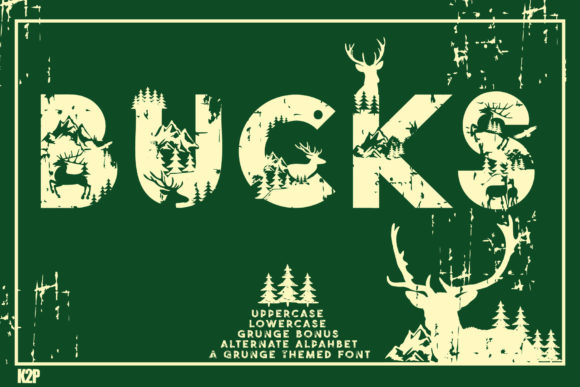
The Ultimate Guide to Bucks Font: A Fun and Assertive Decorative Font
I’ll never forget the time I was working on a camping-themed design project, and I just couldn’t find the right font to capture the adventurous spirit of the great outdoors. My client wanted something that was fun, original, and assertive – and I was determined to deliver. That’s when I stumbled upon Bucks Font, a game-changing decorative font that perfectly fit the bill.
Bucks Font is a fun, original, and assertive decorative font that’s perfect for various design ideas related to fishing, camping, traveling, and more. This font is PUA encoded, which means you can access all of the glyphs and swashes with ease.
An Honest Review of Bucks Font
- ✨ Unique and original design that’s sure to stand out
- 🎨 Highly versatile and perfect for a wide range of design projects
While Bucks Font is an amazing decorative font, there are a few things to keep in mind:
- 🤔 Limited use in formal or professional design projects – it’s best suited for creative and adventurous themes
- ⚠️ May not be the best choice for body text or long paragraphs, as it’s a decorative font meant to make a statement
The Backstory of Bucks Font
Bucks Font was designed with the outdoor enthusiast in mind. The font’s creator wanted to craft a unique and assertive decorative font that would capture the spirit of adventure and freedom. With its bold lines and playful swashes, Bucks Font is perfect for designs that require a touch of personality and whimsy.
Q: Is Bucks Font suitable for body text or long paragraphs?
A: No, Bucks Font is a decorative font meant to make a statement. It’s best suited for headlines, titles, and short text passages. For body text or long paragraphs, consider using a clear and readable font.